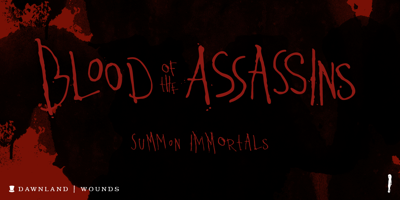
Strangelove Next Font is perfect for alternative music venues, eccentric fashion brands, unconventional art galleries, quirky indie film productions, avant-garde theater companies, experimental design studios, unique love story campaigns, alternative romance novels, mysterious entertainment venues, and authentically strange creative designs.
Strangelove Next Font is exciting because it evolves with mysterious allure and unconventional romance through enigmatic letterforms that capture the beautiful complexity of strange love and the captivating appeal of relationships that defy conventional expectations, making it perfect for brands celebrating unique connections and alternative expressions of affection.
The Strangelove Next Font family includes regular and bold weights with mysterious alternates, unconventional ornaments, and enigmatic decorative elements, providing designers with intriguing tools for creating typography that whispers with authentic alternative romance and mysterious sophistication.
When your project needs unconventional romance and mysterious allure, Strangelove Next Font Free Download delivers the perfect typographic enigma for alternative communications. This captivating display typeface combines alternative culture aesthetics with contemporary functionality, ensuring your brands resonate with audiences seeking genuine uniqueness and unconventional beauty. The enigmatic letterforms and mysterious styling make this font an essential choice for alternative venues, indie productions, and any application where strange love, unconventional romance, and mysterious attraction are crucial for establishing authenticity and connecting with individuals who embrace the beautiful complexity of love that doesn't follow traditional patterns and celebrates the mysterious chemistry that draws unique souls together in relationships that transcend ordinary expectations and create their own extraordinary reality.